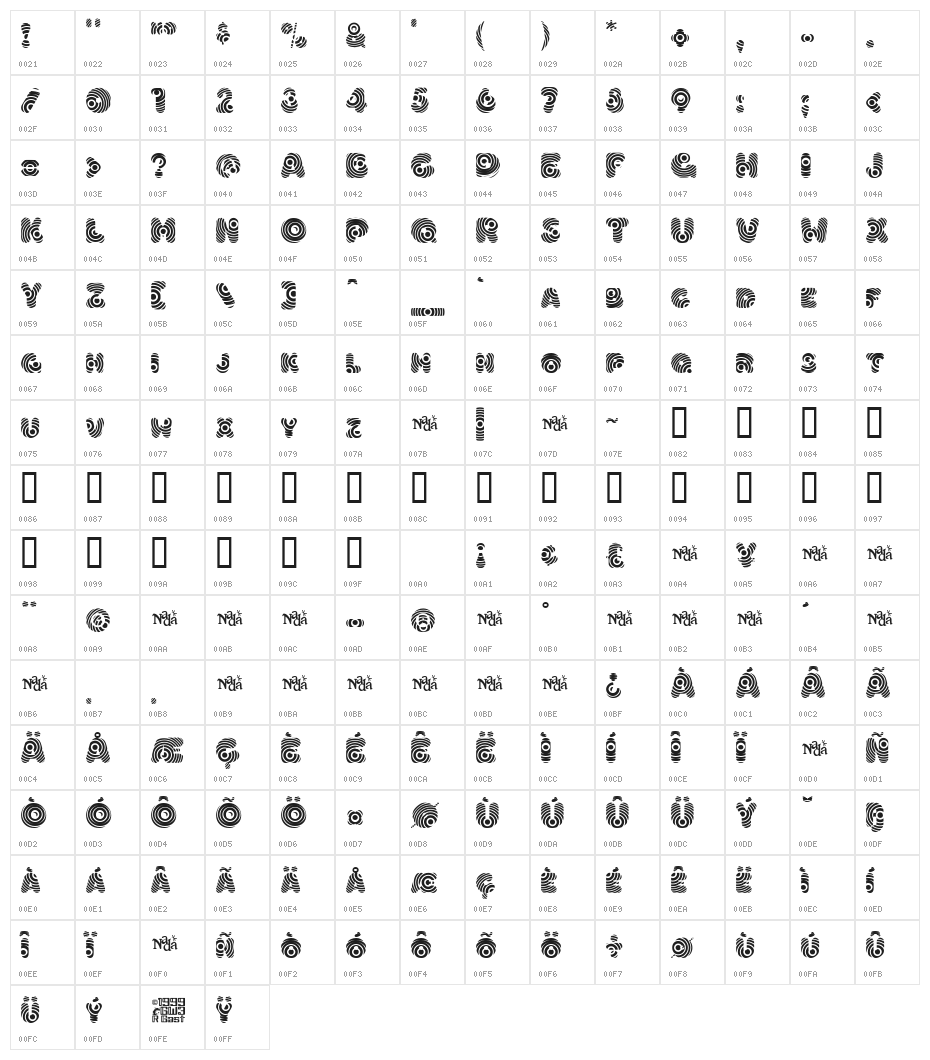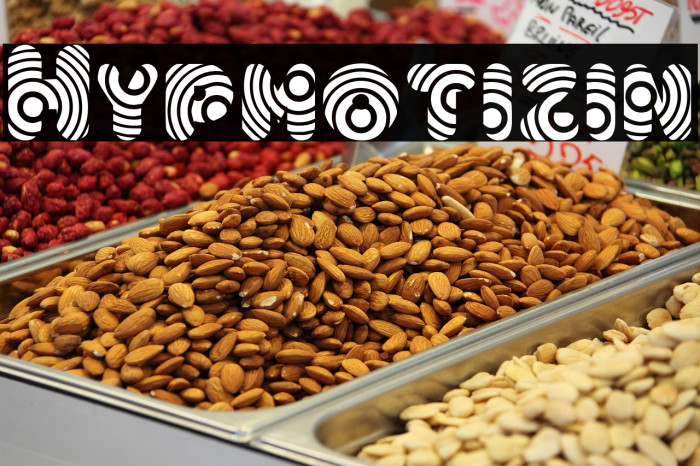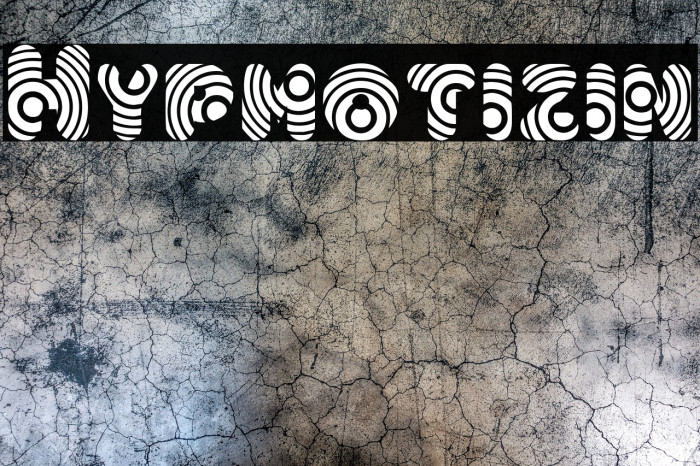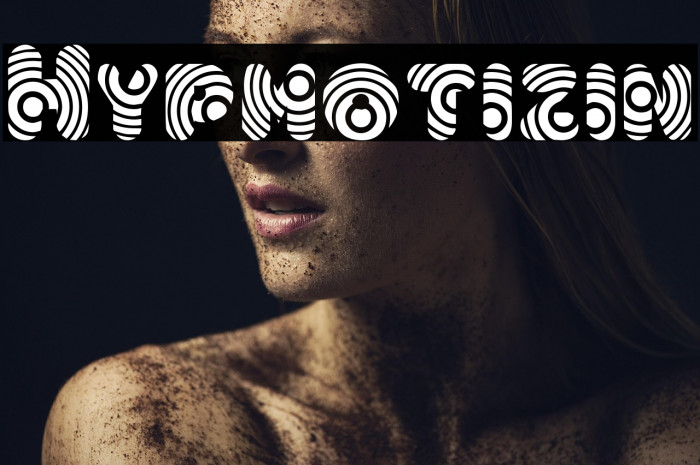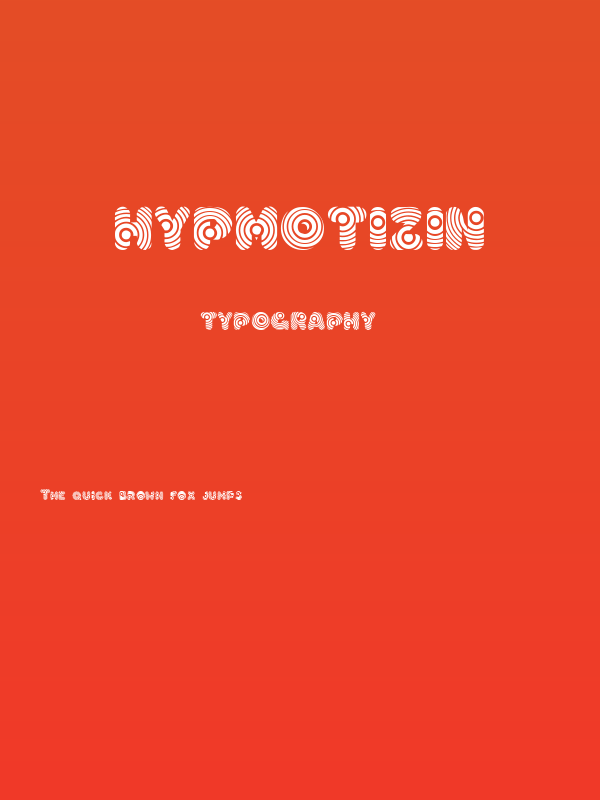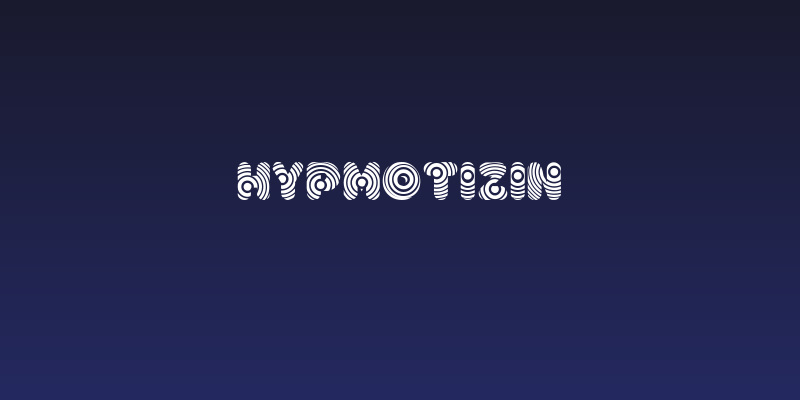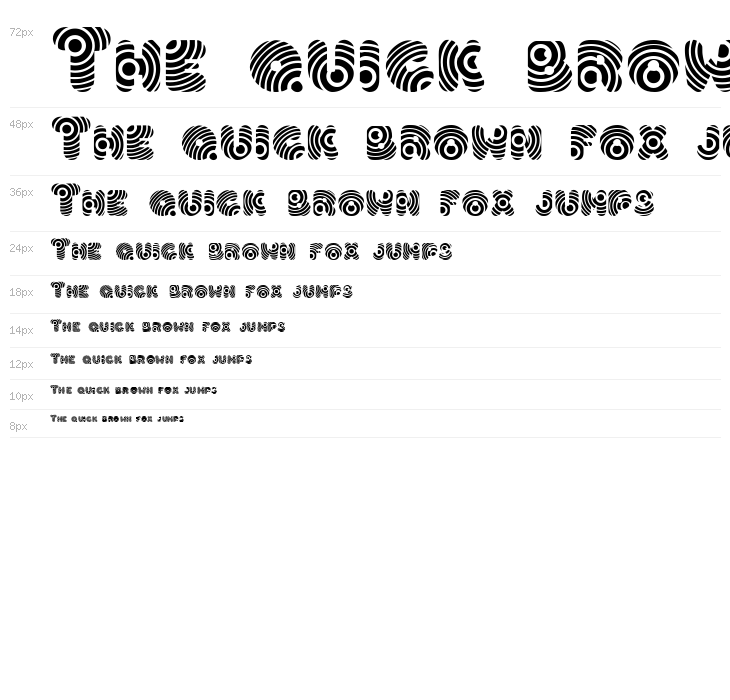
Hypmotizin Font
Hypmotizin Description
This font features a bold and hypnotic design with concentric circular patterns forming each character. The letters and numbers are composed of multiple layers of rings, creating a sense of depth and movement. The style is highly decorative and eye-catching, making it ideal for projects that require a strong visual impact. The characters are evenly spaced, and the overall look is both modern and playful, suitable for creative and artistic applications.
| Proposed Projects | Ideal for posters, album covers, event invitations, and any project needing a striking visual element. |